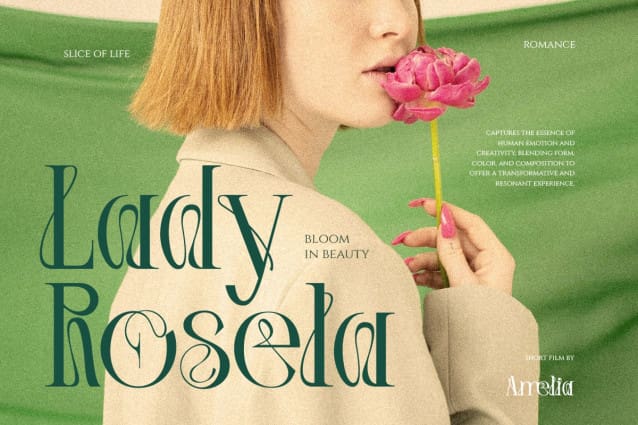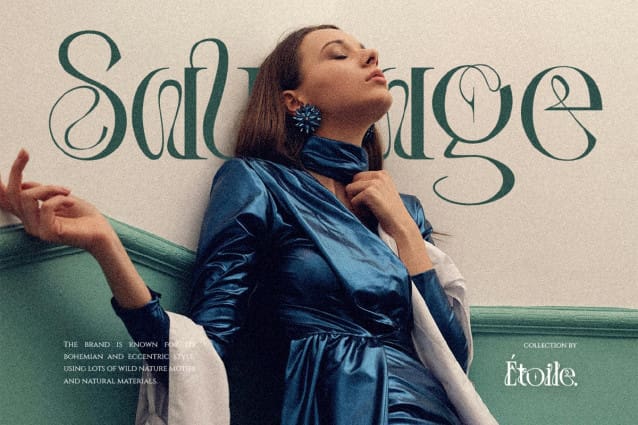
Elnora Font
Elnora Font, our quality and classy typeface. Each letter together creates the harmonious of elegance and the uniqueness. Elnora is a stylish serif with curved lines that form beautiful letters. Perfect for branding, invitations, and editorial design, this typeface brings a touch of classic beauty to modern aesthetics.